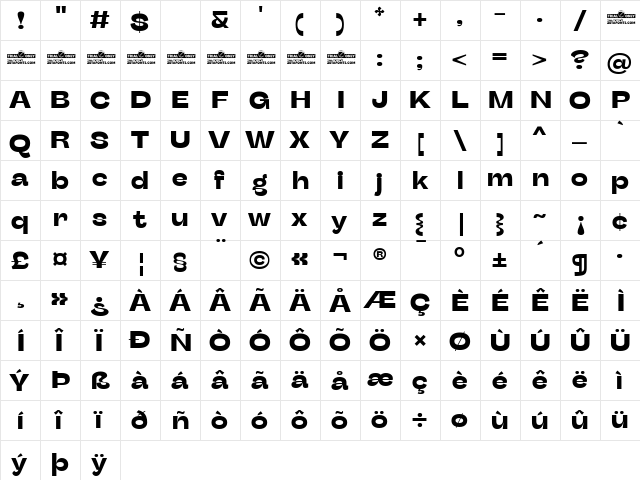
Stinger Wide Trial Bold
| Foundry | Studio Kmzero & Zetafonts |
| Designer | Cosimo Lorenzo Pancini |
Design Context for Stinger Wide Trial Typeface
Stinger Wide Trial offers clean, dependable letterforms without strong stylistic allegiance, making it a practical choice for designers who need flexibility. Its bold stroke weight gives it real presence on the page.